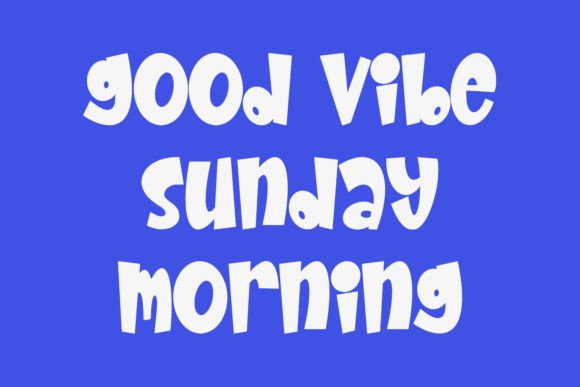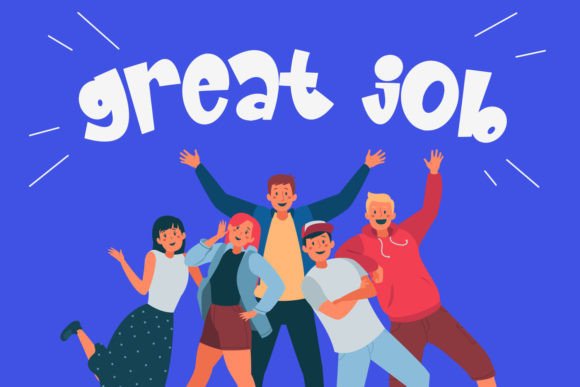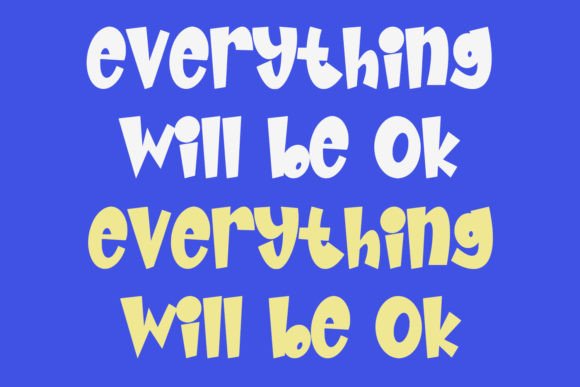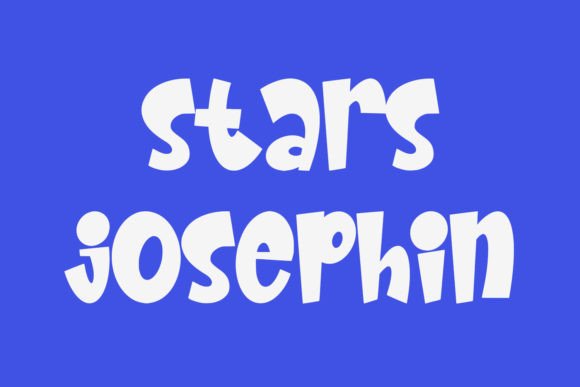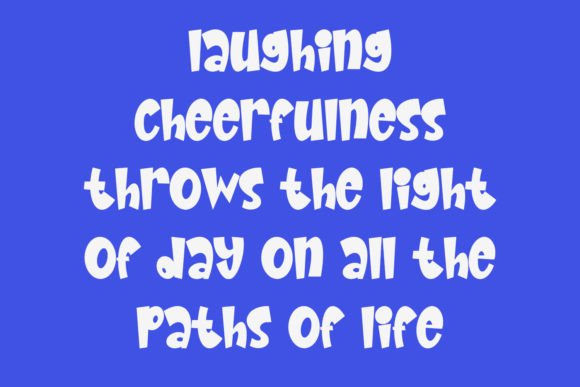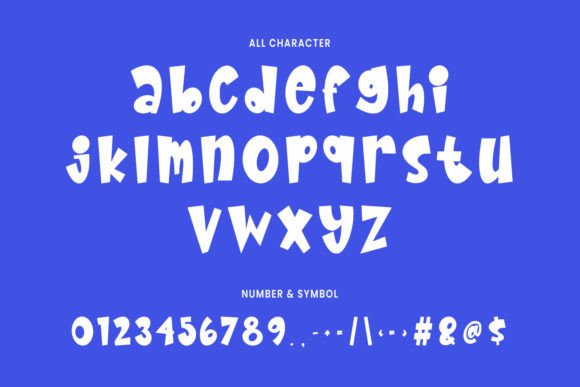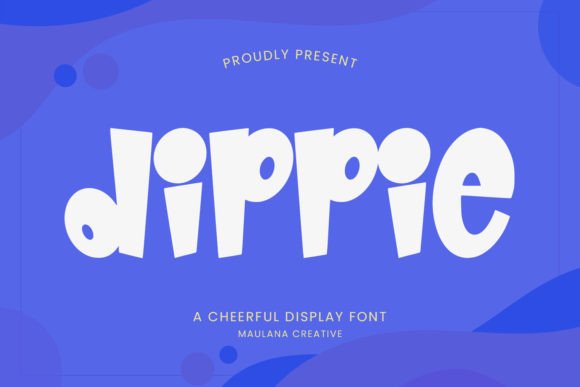
Dippie Font: The Cheerful Display Font for Creative Projects
Are you looking for a font that can add a touch of cheerfulness and playfulness to your designs? Look no further than Dippie Font, a delightful display font that is perfect for a variety of creative projects. In this article, we’ll explore the features and benefits of Dippie Font, and show you how to make the most of this versatile and fun font.
What is Dippie Font?
Dippie Font is a cheerful display font that is designed to bring a smile to your face. With its playful and carefree vibe, this font is perfect for designers and crafters who want to add a touch of whimsy to their work. Whether you’re creating a logo, social media graphics, movie titles, book titles, or any other type of design, Dippie Font is a great choice.
Features of Dippie Font
Dippie Font has a number of features that make it a great choice for creative projects. Some of its key features include:
• Playful and cheerful design: Dippie Font has a unique and playful design that is sure to grab attention.
• Versatile: This font is suitable for a wide range of creative projects, from logos and social media graphics to movie titles and book titles.
• Easy to read: Despite its playful design, Dippie Font is easy to read, even at small sizes.
• Pairs well with script and serif fonts: Dippie Font pairs well with script and serif fonts, making it a great choice for secondary text.
Uses for Dippie Font
Dippie Font is a versatile font that can be used for a wide range of creative projects. Here are some ideas to get you started:
• Logo design: Dippie Font is a great choice for logo design, especially for brands that want to convey a playful and cheerful image.
• Social media graphics: Use Dippie Font to create eye-catching social media graphics that will help your brand stand out.
• Movie titles: Dippie Font is perfect for movie titles, especially for films that have a lighthearted or comedic tone.
• Book titles: Use Dippie Font to create eye-catching book titles that will help your book stand out.
• Secondary text font: Dippie Font pairs well with script and serif fonts, making it a great choice for secondary text.
Tips for Using Dippie Font
Here are some tips for using Dippie Font effectively:
• Use it sparingly: Dippie Font is a display font, so it’s best to use it sparingly to add emphasis and interest to your designs.
• Pair it with complementary fonts: Pair Dippie Font with script and serif fonts to create a visually appealing contrast.
• Experiment with colors: Dippie Font looks great in a variety of colors, so don’t be afraid to experiment and find the perfect color for your design.
Dippie Font is a cheerful display font that is perfect for creative projects. With its playful and carefree vibe, this font is sure to add a touch of whimsy to your designs. Whether you’re creating a logo, social media graphics, movie titles, book titles, or any other type of design, Dippie Font is a great choice. So why not give it a try and see how you can use Dippie Font to make your designs more engaging and fun?